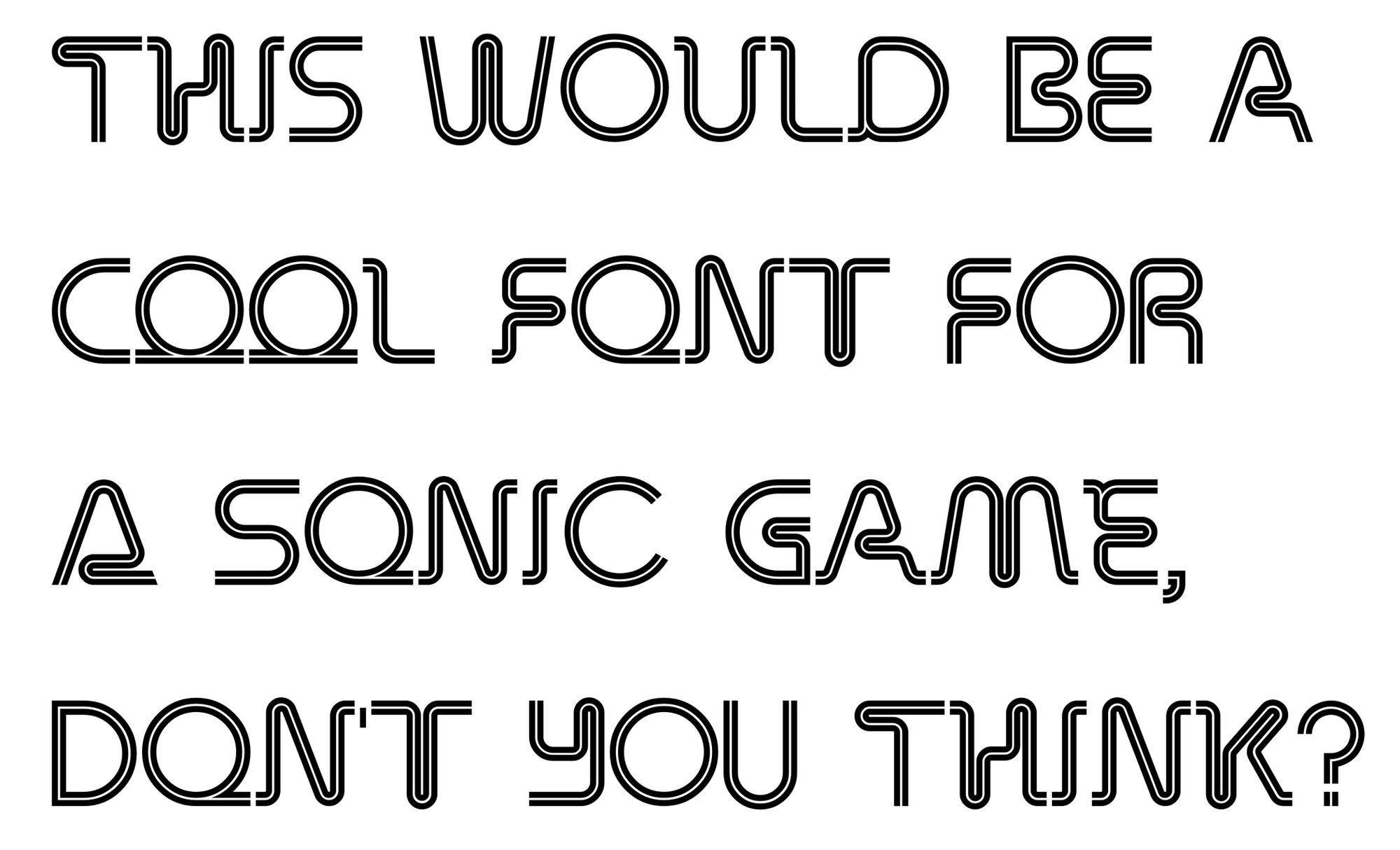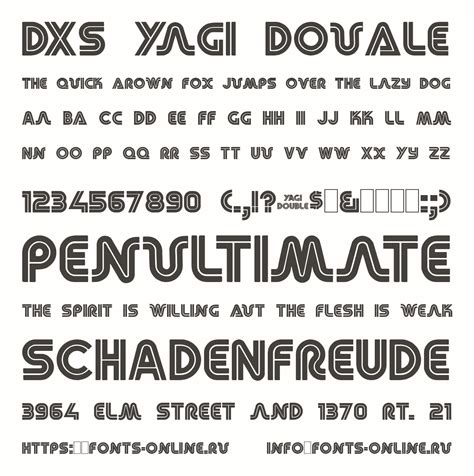
Yagi Double Font
Yagi Double Font - “there are various amateur digitizations, including retro stereo wide (gus thessalos, 2010) and dxs yagi double (dick. I've been searching for the last hour trying to find this font: The typeface contains 1 file and supports 15 languages. [oka] part of the large yagi family released on robert trogman’s fotostar label in the late. Discover a world of captivating typography for your creative projects. 'find my font' is an easy to use application for identifying fonts in digital images. Dxs yagi double is a font. Online fonts — a site about fonts that has tens of categories and thousands of typefaces Explore yagi link double fonts at myfonts.
[oka] part of the large yagi family released on robert trogman’s fotostar label in the late. Explore yagi link double fonts at myfonts. I've been searching for the last hour trying to find this font: Online fonts — a site about fonts that has tens of categories and thousands of typefaces “there are various amateur digitizations, including retro stereo wide (gus thessalos, 2010) and dxs yagi double (dick. 'find my font' is an easy to use application for identifying fonts in digital images. The typeface contains 1 file and supports 15 languages. Discover a world of captivating typography for your creative projects. Dxs yagi double is a font.
'find my font' is an easy to use application for identifying fonts in digital images. “there are various amateur digitizations, including retro stereo wide (gus thessalos, 2010) and dxs yagi double (dick. Explore yagi link double fonts at myfonts. [oka] part of the large yagi family released on robert trogman’s fotostar label in the late. Dxs yagi double is a font. The typeface contains 1 file and supports 15 languages. Online fonts — a site about fonts that has tens of categories and thousands of typefaces Discover a world of captivating typography for your creative projects. I've been searching for the last hour trying to find this font:
Explore yagi link double fonts at myfonts. Discover a world of captivating typography for your creative projects. 'find my font' is an easy to use application for identifying fonts in digital images. Dxs yagi double is a font. I've been searching for the last hour trying to find this font:
Online fonts — a site about fonts that has tens of categories and thousands of typefaces Dxs yagi double is a font. 'find my font' is an easy to use application for identifying fonts in digital images. Explore yagi link double fonts at myfonts. The typeface contains 1 file and supports 15 languages.
'find my font' is an easy to use application for identifying fonts in digital images. I've been searching for the last hour trying to find this font: The typeface contains 1 file and supports 15 languages. “there are various amateur digitizations, including retro stereo wide (gus thessalos, 2010) and dxs yagi double (dick. Explore yagi link double fonts at myfonts.
I've been searching for the last hour trying to find this font: Online fonts — a site about fonts that has tens of categories and thousands of typefaces Explore yagi link double fonts at myfonts. Discover a world of captivating typography for your creative projects. 'find my font' is an easy to use application for identifying fonts in digital images.
[oka] part of the large yagi family released on robert trogman’s fotostar label in the late. Explore yagi link double fonts at myfonts. Dxs yagi double is a font. “there are various amateur digitizations, including retro stereo wide (gus thessalos, 2010) and dxs yagi double (dick. 'find my font' is an easy to use application for identifying fonts in digital.
Discover a world of captivating typography for your creative projects. Explore yagi link double fonts at myfonts. Dxs yagi double is a font. “there are various amateur digitizations, including retro stereo wide (gus thessalos, 2010) and dxs yagi double (dick. [oka] part of the large yagi family released on robert trogman’s fotostar label in the late.
“there are various amateur digitizations, including retro stereo wide (gus thessalos, 2010) and dxs yagi double (dick. Dxs yagi double is a font. [oka] part of the large yagi family released on robert trogman’s fotostar label in the late. I've been searching for the last hour trying to find this font: Discover a world of captivating typography for your creative.
The typeface contains 1 file and supports 15 languages. “there are various amateur digitizations, including retro stereo wide (gus thessalos, 2010) and dxs yagi double (dick. Dxs yagi double is a font. [oka] part of the large yagi family released on robert trogman’s fotostar label in the late. Explore yagi link double fonts at myfonts.
I've been searching for the last hour trying to find this font: 'find my font' is an easy to use application for identifying fonts in digital images. Online fonts — a site about fonts that has tens of categories and thousands of typefaces Explore yagi link double fonts at myfonts. [oka] part of the large yagi family released on robert.
I've been searching for the last hour trying to find this font: Dxs yagi double is a font. The typeface contains 1 file and supports 15 languages. 'find my font' is an easy to use application for identifying fonts in digital images.
Online fonts — a site about fonts that has tens of categories and thousands of typefaces Explore yagi link double fonts at myfonts. [oka] part of the large yagi family released on robert trogman’s fotostar label in the late.